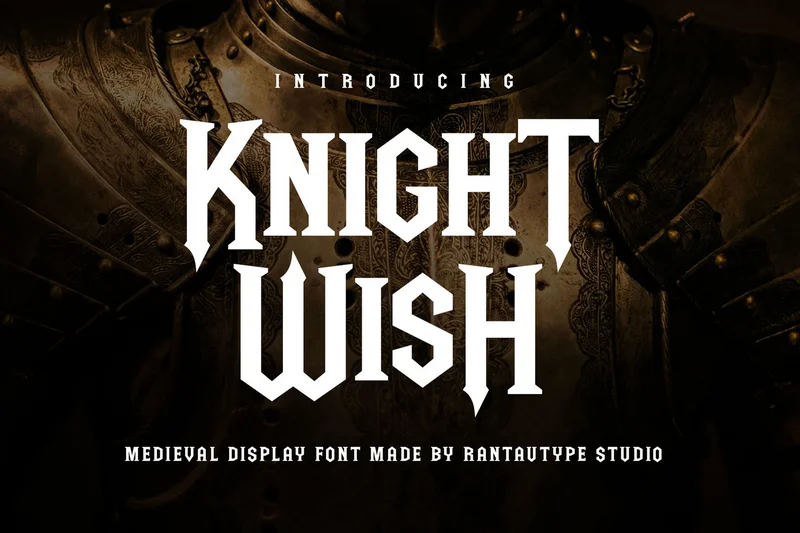
Knight Wish Medieval Display Font
Knight Wish is capture the spirit of the Middle Ages, a time of knights, castles, and illuminated manuscripts. Each letterform is carefully designed with bold strokes and sharp serifs, evoking a sense of historical depth and craftsmanship that feels both regal and dramatic.
Knight Wish is a perfectly choice for any creative endeavor, creating, modern, lifestyle design such as logotype, title, cover, branding, invitations, wedding designs, display and magazine, social media posts, advertisements, printed quotes, product packaging, corporate brand, product designs, labels, photography, watermarks, special events and any other project with medieval touch.